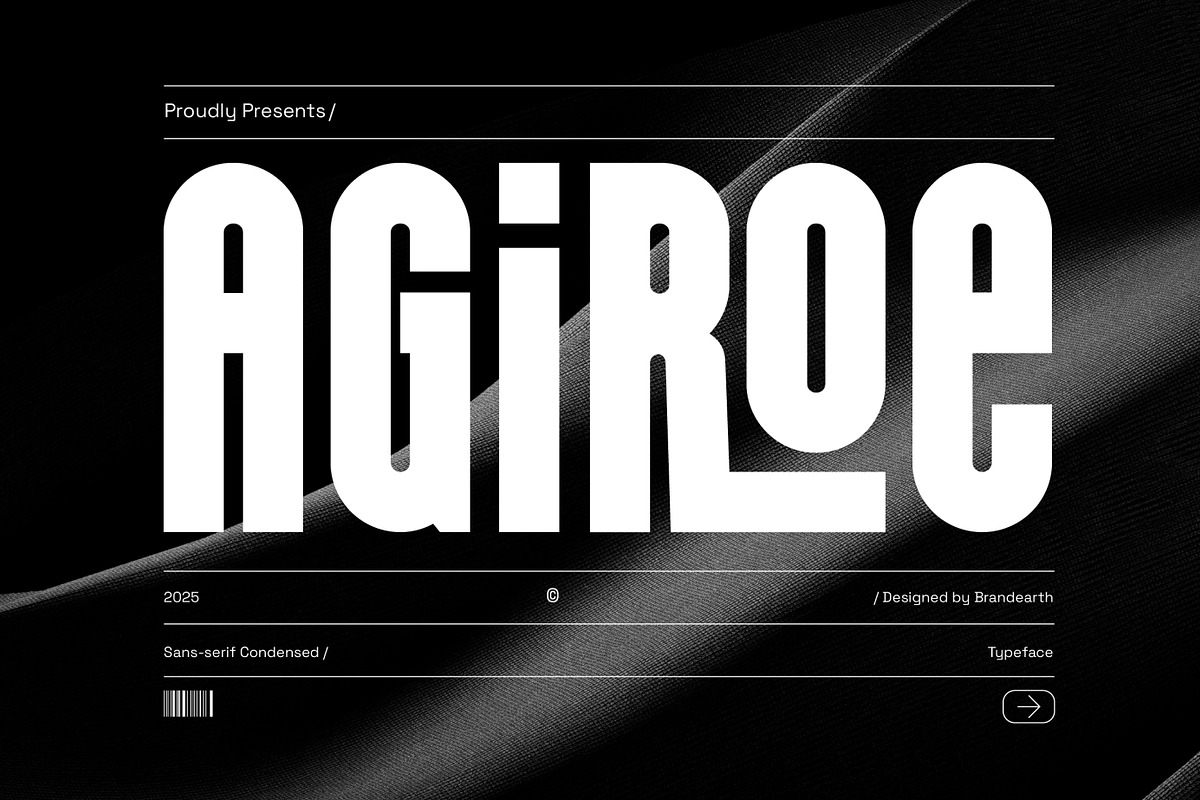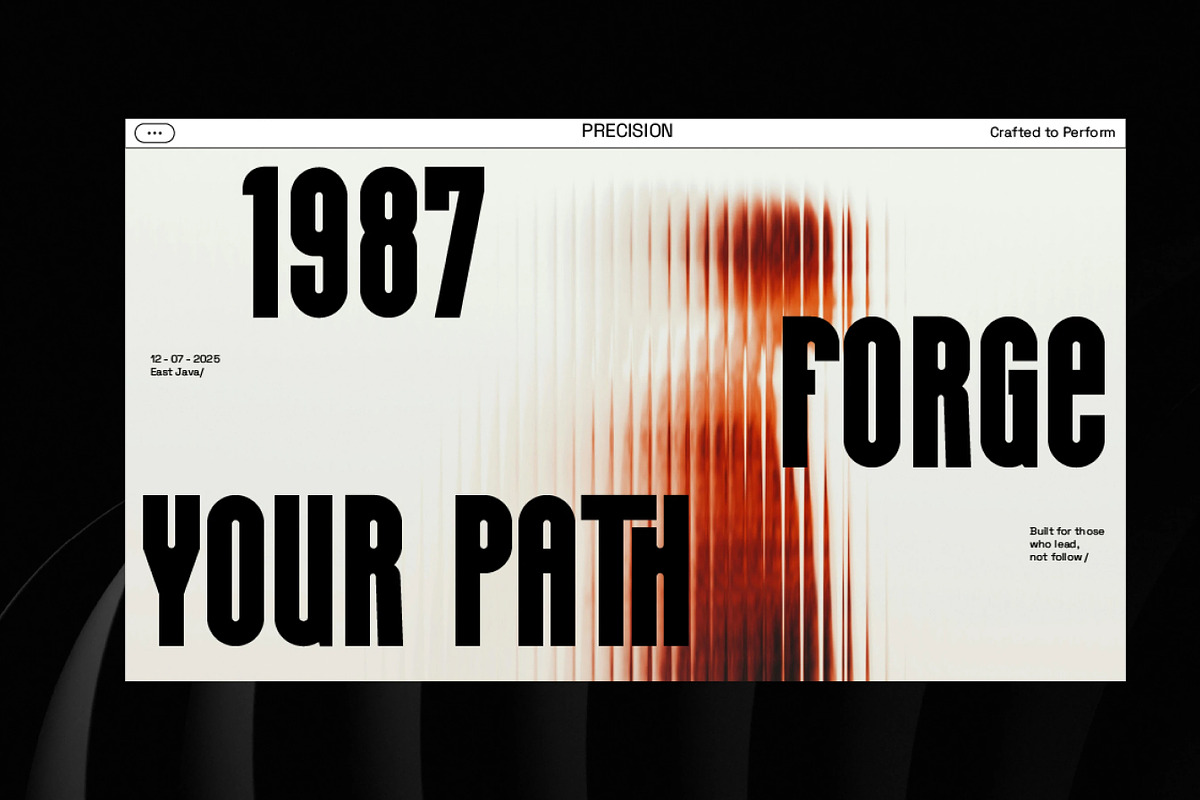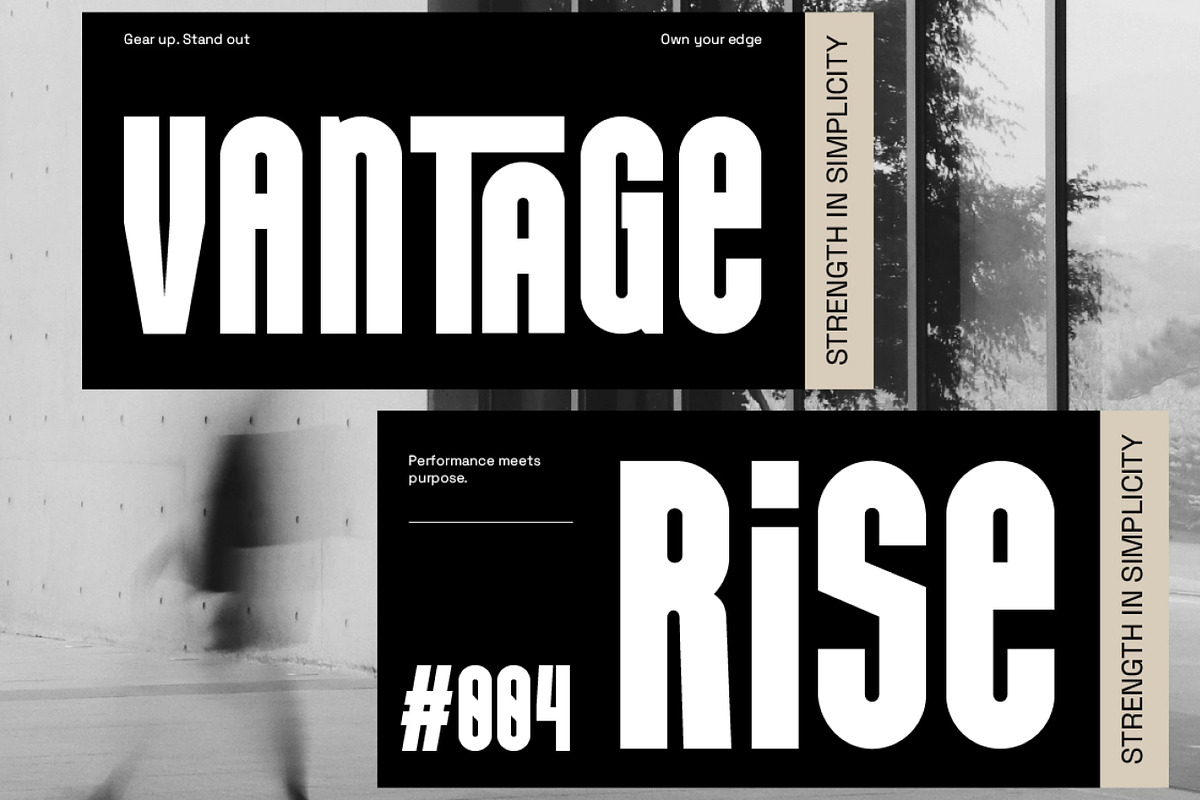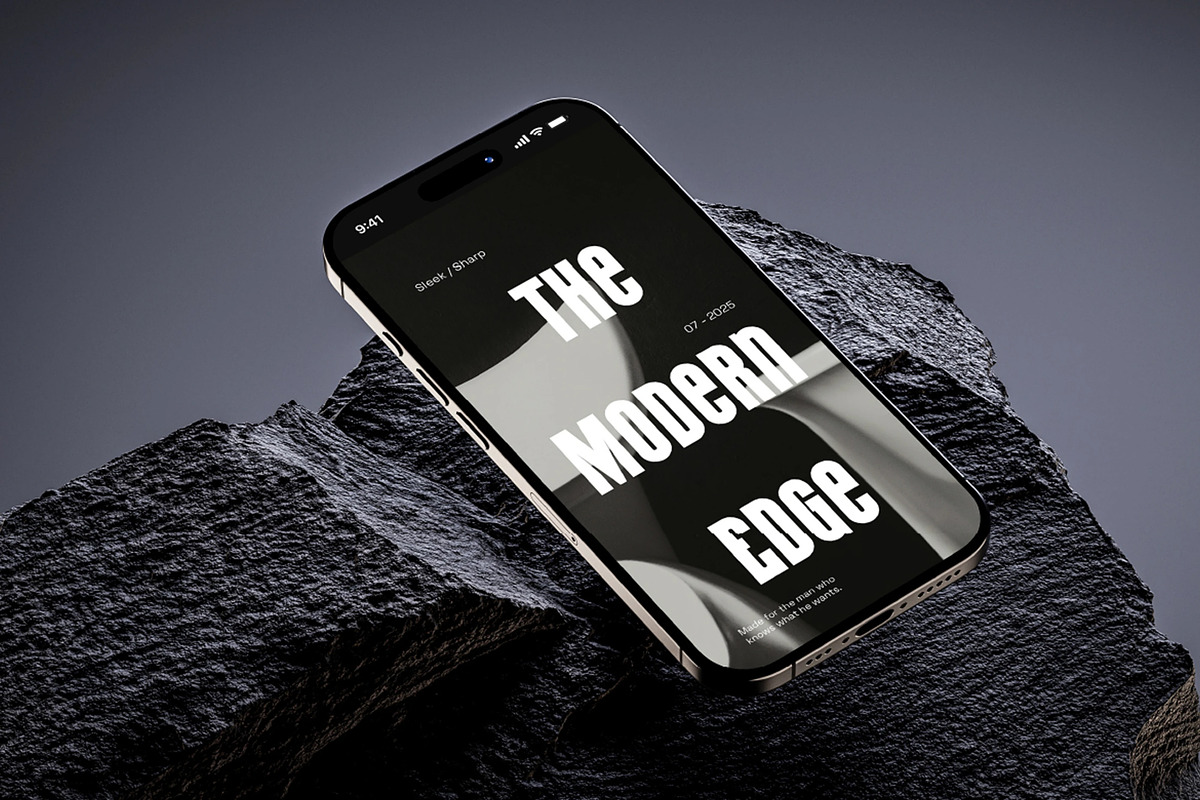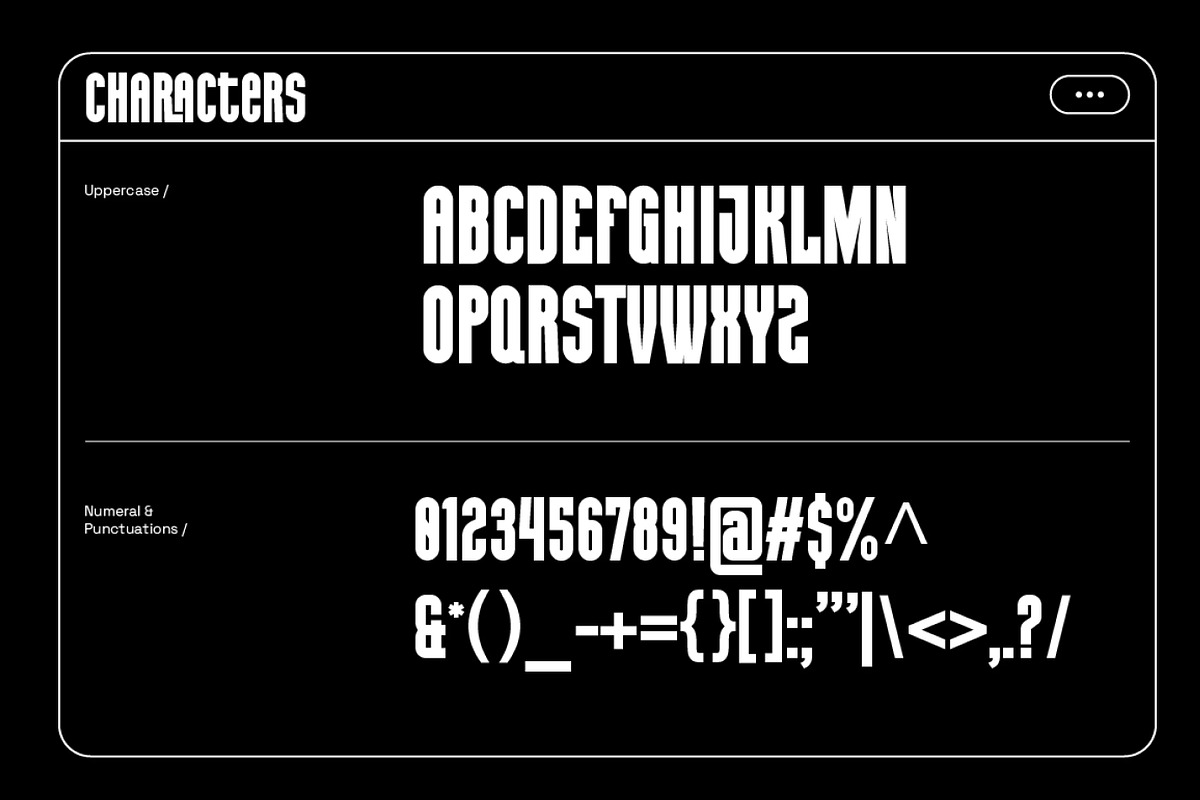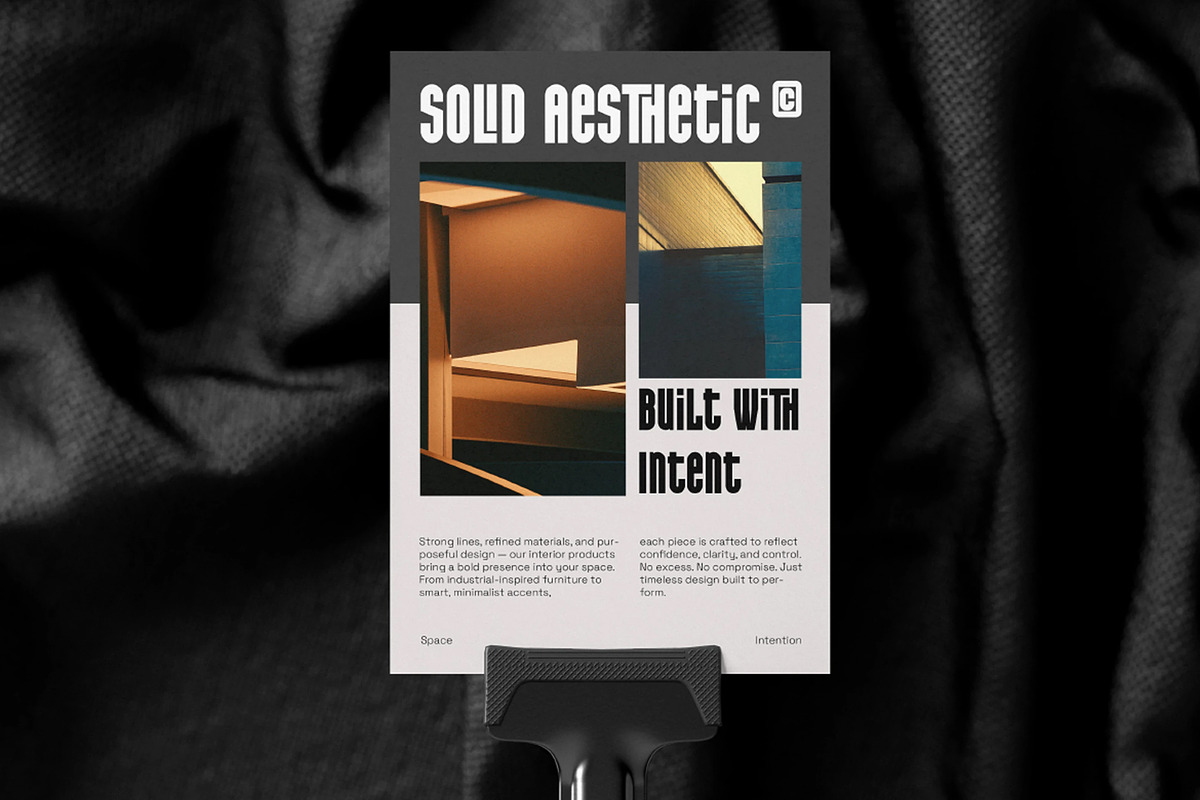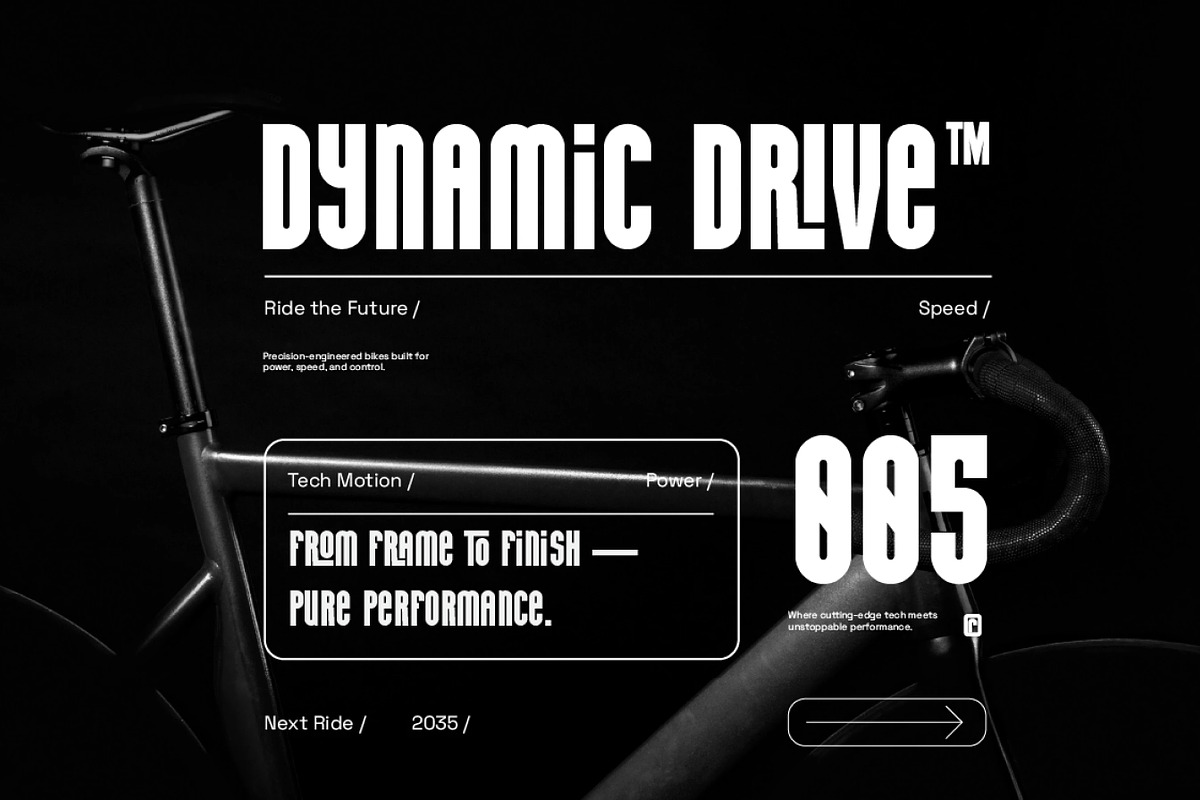
Agiroe – Bold Condensed Sans Serif
Agiroe is a bold condensed sans serif with a futuristic and high-impact appearance. Its elongated proportions, geometric forms, and dynamic contrast evoke a sense of tech innovation, speed, and modern power. The typography is particularly well-suited for automotive branding, technology interfaces, editorial layouts, esports visuals, and sci-fi titles. With its monochrome and high-contrast presentation, this font style emphasizes clarity, edge, and visual dominance.
The letterforms in Agiroe are built with tall, narrow proportions and sharp geometric structure, creating a commanding vertical rhythm that gives the typeface its bold, futuristic character. It features a high-impact display quality that's perfect for automotive branding, tech interfaces, and dynamic editorial titles.
With its condensed weight and dynamic contrast, Agiroe bridges the gap between raw power and modern precision. It delivers a strong, edgy feel while remaining highly legible, making it ideal for esports visuals, sci-fi titles, and bold headline typography.
Main Features
Ligatures & Alternate
Numeral & Punctuations